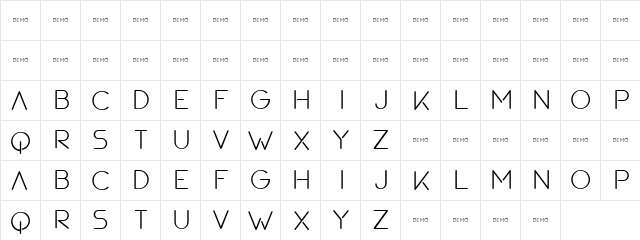
SPOTNIK demo Regular
| Foundry | Sahirul Iman, Semarang, alexatype |
| Designer | Sahirul Iman, Semarang, alexatype |
Design Context for SPOTNIK demo Typeface
SPOTNIK demo offers clean, dependable letterforms without strong stylistic allegiance, making it a practical choice for designers who need flexibility.